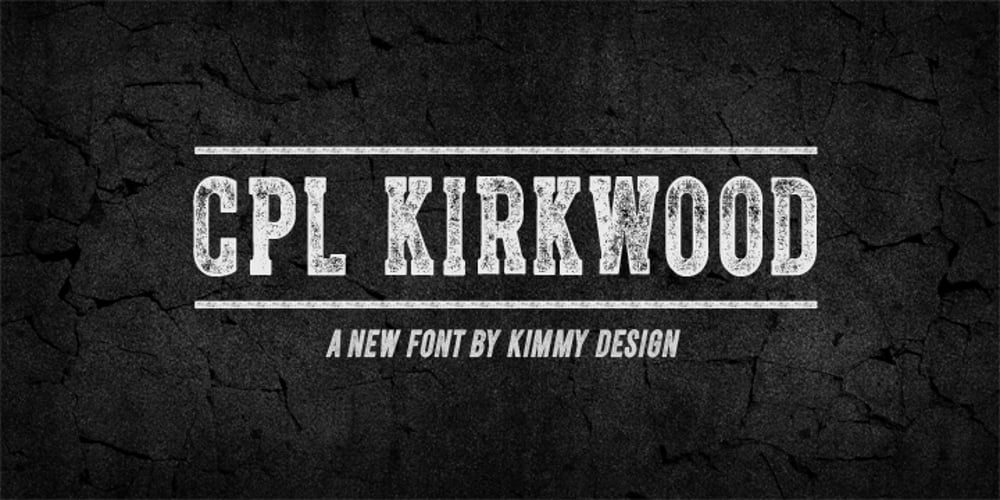
CPL Kirkwood Font Family was designed by Kimmy Kirkwood and published by Kimmy Design. CPL Kirkwood contains 9 styles and family package options. CPL Kirkwood is a distressed condensed bold slab and sans serif typeface. With both the serif and sans serif type options, it can be used in a broad range of design works. Included is a set of Extras that give the typeface an array of symbols, lines and banners. INSTALL NOTE: If you have purchased CPL Kirkwood ALL and are installing via Font Book, it is best to install in small groups rather than opening all font files at once. Once one group is installed (SLAB + SLAB Italics) you open and install the next group.